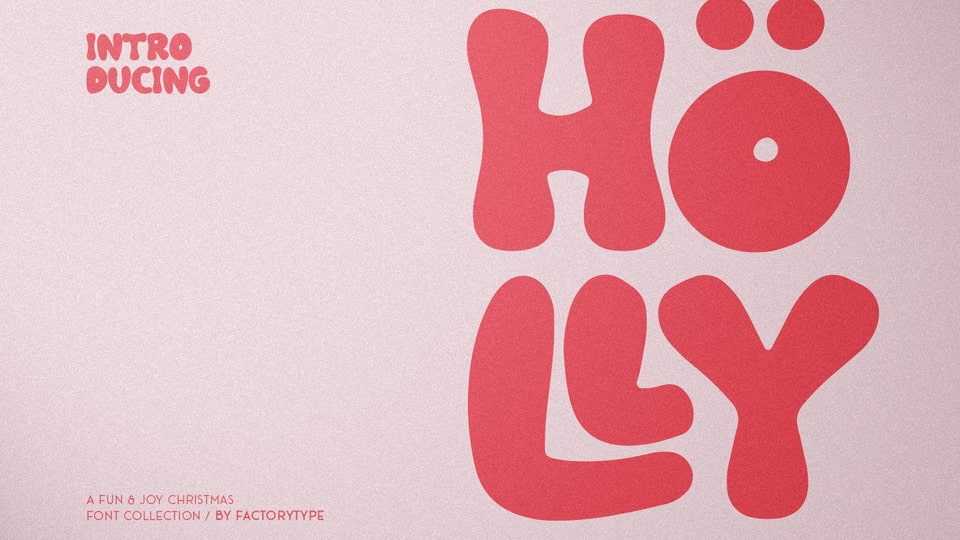
Download Holly font, a modern and fun Christmas typeface perfect for sleigh rides and carol singing. Whether you’re planning a winter party or creating gift cards and labels, Holly font can help unleash your creativity.
Designer: Factory Type